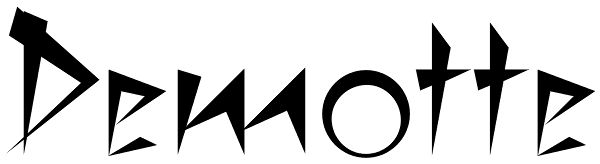
Demotte
Demotte is a display face made up of triangular blocks and some circles. It comes in two styles. In one style the triangular blocks point up so that the letters are heavy at the base, and in the other the blocks point down so that the letters are...
Demotte Bold
Demotte
Demotte Warp